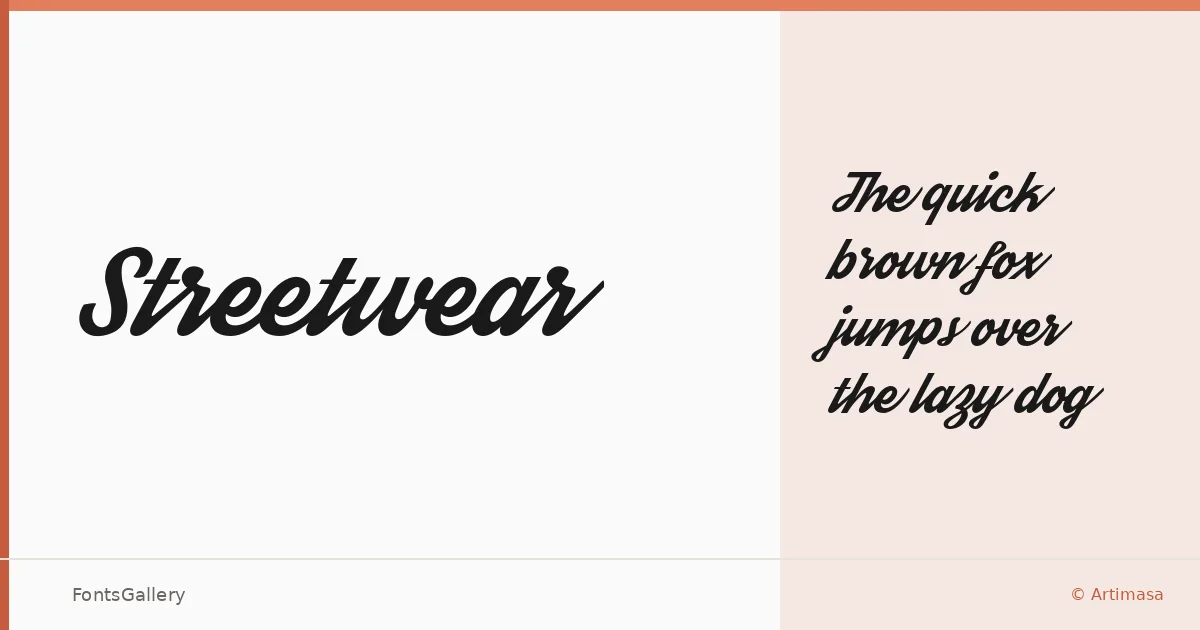
About Streetwear Font
There is a rough, hand-worn energy to this script — the kind of lettering you find on a worn denim jacket or a screen-printed band tee that has been through a hundred washes. Designed by Artimasa, it arrives as a single Regular cut in OTF format, which keeps the proposition simple: one strong voice, no hedging.
The script sits at the intersection of bold and rustic, carrying a vintage weight while reading as unmistakably modern in attitude. The letterforms feel gestural and confident — strokes that suggest a brush or marker rather than a pen nib, giving headlines and logotypes an immediate graphic presence. Latin character support is partial, so review the glyph set against your copy before committing to extended text.
Its natural home is anywhere the design needs attitude fast: brand marks, poster headlines, social media graphics, and T-shirt artwork all suit its register well. The contrast in texture and weight makes it work particularly well alongside clean, rational faces — Helvetica or Abrade can anchor it on the page, while Canela, ABC Arizona, and Anglecia Pro offer more editorial sophistication if the project calls for a refined counterpart.